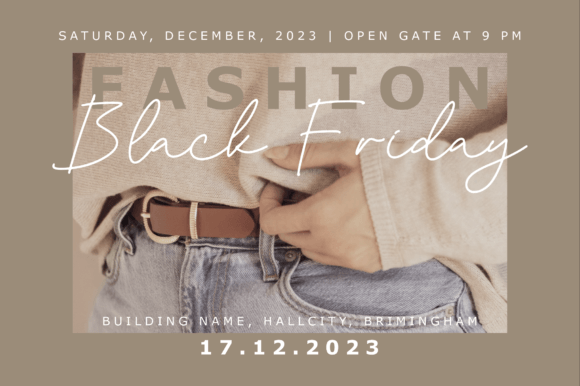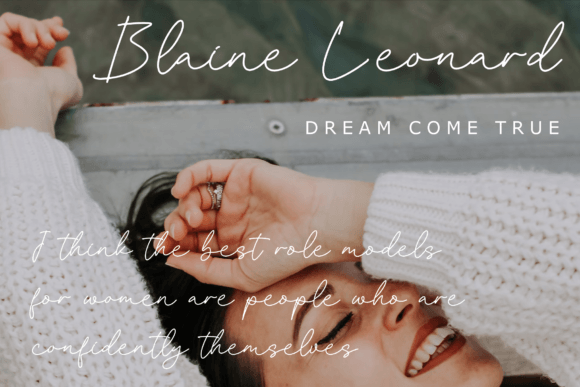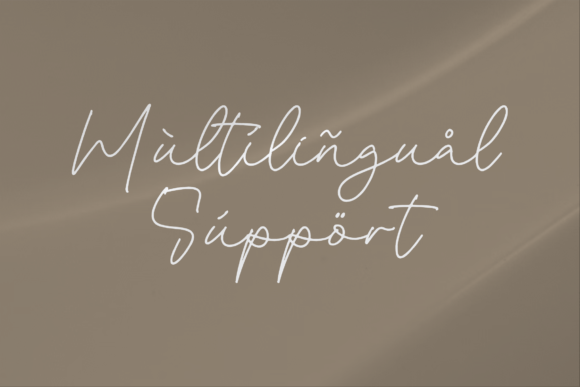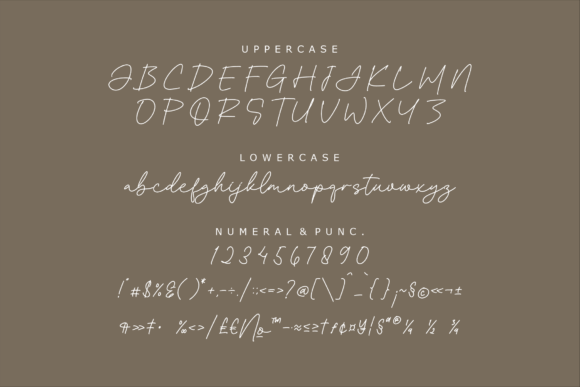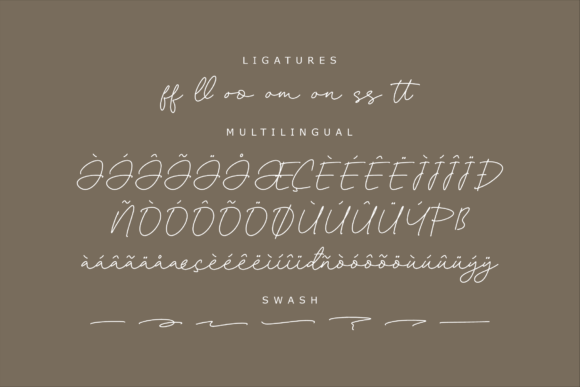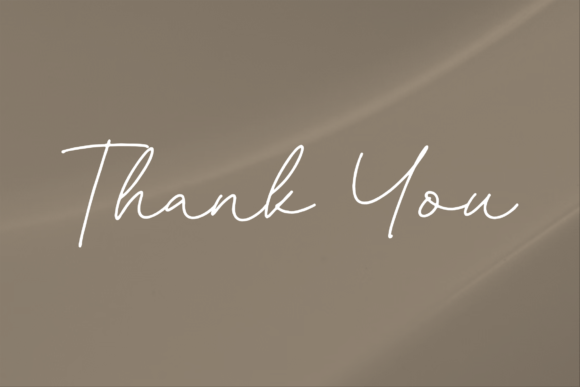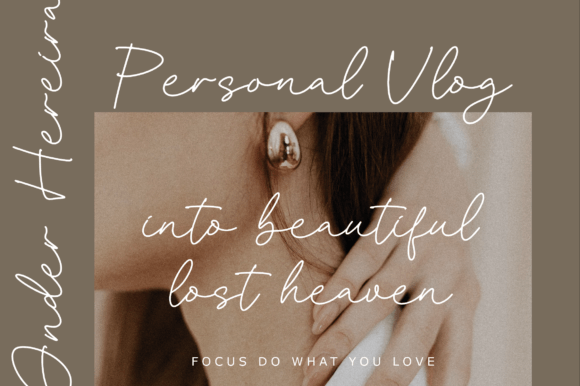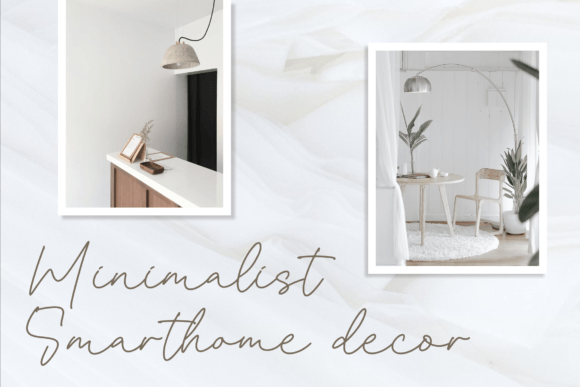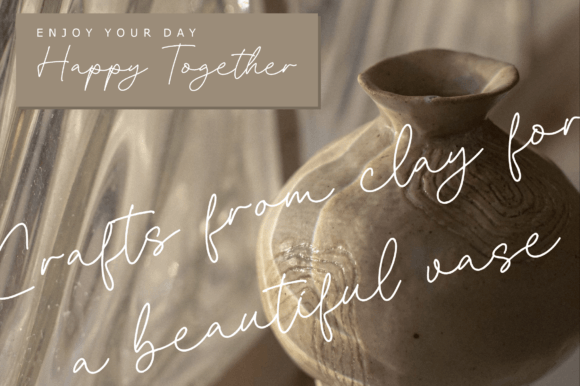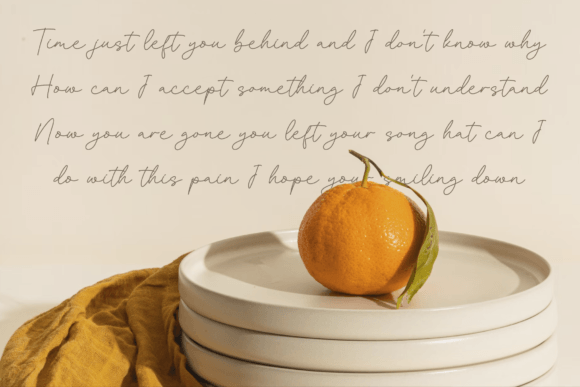
Abandone Musstare Font
Introduce elegance and simplicity to your design projects with the Abandone Musstare font. This monoline signature font is perfect for a wide range of creative applications. Its clean and stylish lines add a beautiful script taste to any project.
The Abandone Musstare font is ideal for logos and branding projects. It brings a classy and sophisticated touch to homeware designs, product packaging, mugs, and other merchandise. Its smooth strokes create a professional and elegant impression.
You can also use the Abandone Musstare font for quotes, posters, shopping bags, t-shirts, and book covers. Additionally, it fits perfectly for name cards, invitation cards, greeting cards, labels, and photography watermarks. This font truly shines in special events and various creative projects.
Despite its monoline simplicity, the Abandone Musstare font maintains excellent readability. Whether used for large headlines or small details, it enhances your designs with a clean and stylish appearance.
Using the Abandone Musstarefont will elevate your creative work by adding a timeless and graceful script style. If you want a versatile signature font that fits many purposes, this font is an excellent choice.
In summary, the Abandone Musstarefont is an elegant and versatile monoline signature script. From branding and packaging to invitations and merchandise, it delivers style and sophistication. Download it today and add a beautiful script touch to your projects with Abandone Musstare.